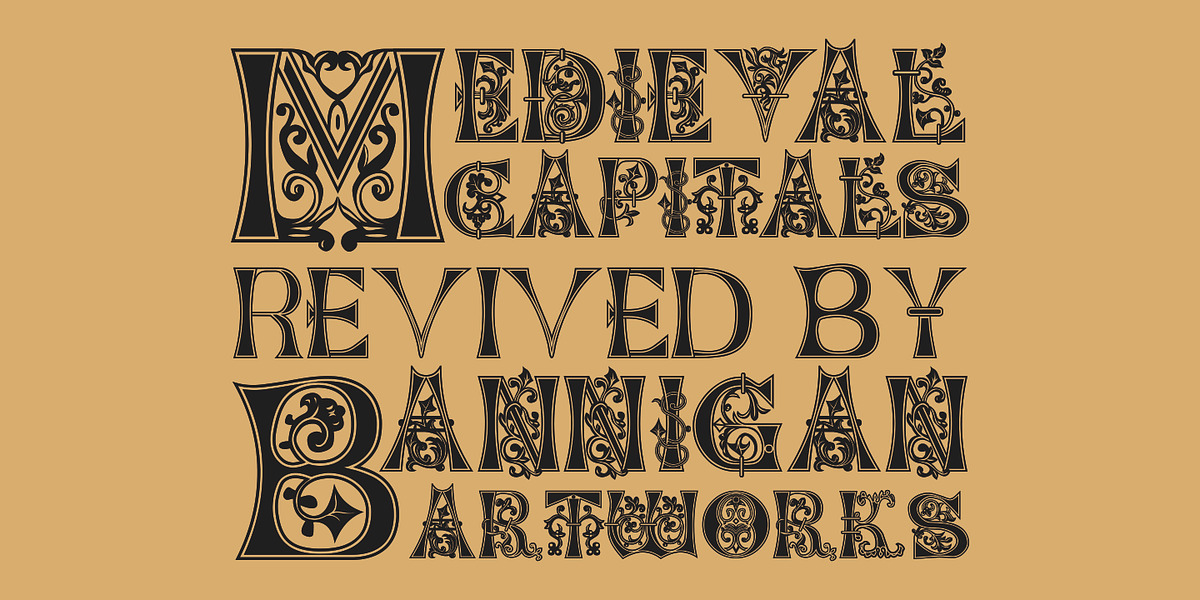
Medieval Caps BA
This font is a revival of blackletter style, drawing inspiration from eleventh-century manuscripts. It features intricate letterforms characteristic of the era and includes Roman numerals rendered as ligatures, adding to its historical authenticity.